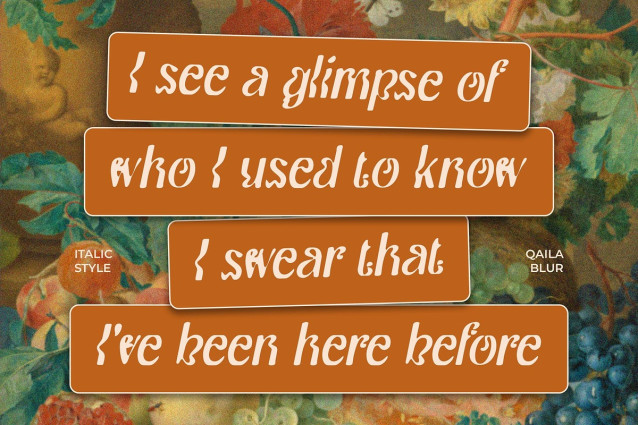
Qaila Blur Font is a modern serif font that masterfully combines slim and minimalist letterforms with the graceful flowing curves characteristic of Art Nouveau. Its clean, contemporary structure provides a fresh take on classic elegance, making it both timeless and stylish.
Soft Blur Effect for Artistic Depth A gentle blur overlays the letterforms, adding an artistic, dreamlike quality that enhances the font’s refined beauty. This subtle visual texture introduces softness and depth, elevating the overall aesthetic without compromising readability.
Ideal for Luxury Branding and Editorial Projects Perfect for projects seeking to convey sophistication and uniqueness, Qaila Blur shines in luxury branding, high-end editorial layouts, and artistic visual designs. Its harmonious blend of classic inspiration and modern execution makes it a versatile choice for creative professionals. Qaila Blur excels in high-end branding, editorial layouts, and artistic visual designs that seek to convey sophistication, exclusivity, and uniqueness. It’s perfect for luxury packaging, upscale magazines, fashion editorials, and other projects where beauty and elegance are paramount.
A Refined Typeface for Distinctive Expression Whether for premium product packaging, elegant magazine spreads, or any design emphasizing beauty and uniqueness, Qaila Blur offers a distinctive and graceful voice that elevates every project with its delicate charm and contemporary artistry.